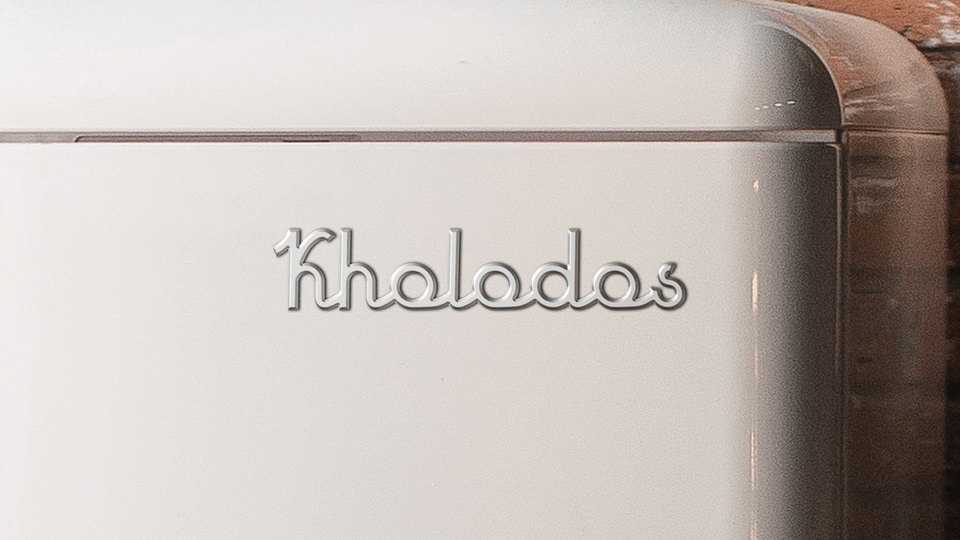
Download Kholodos font, a retro monoline script named as the slang of the refrigerator in Russia. Kholodos is the perfect solution for vibrant retro lettering.
Designer: Grigorij Gushchin